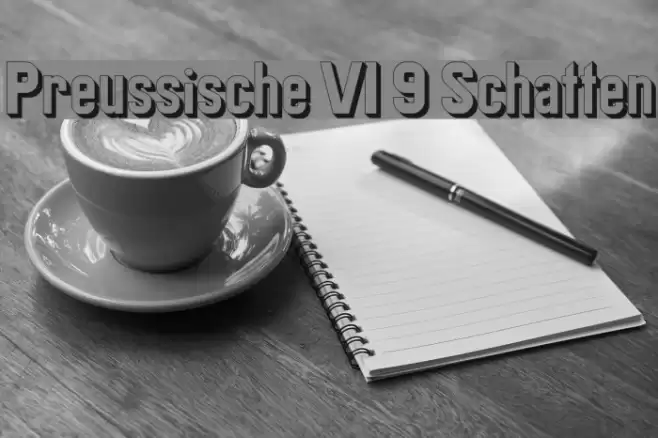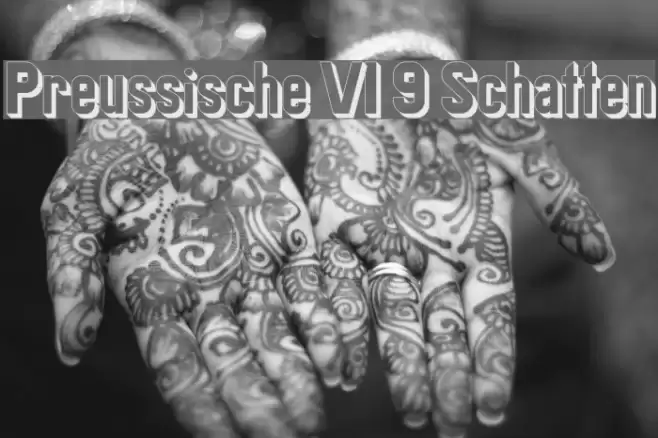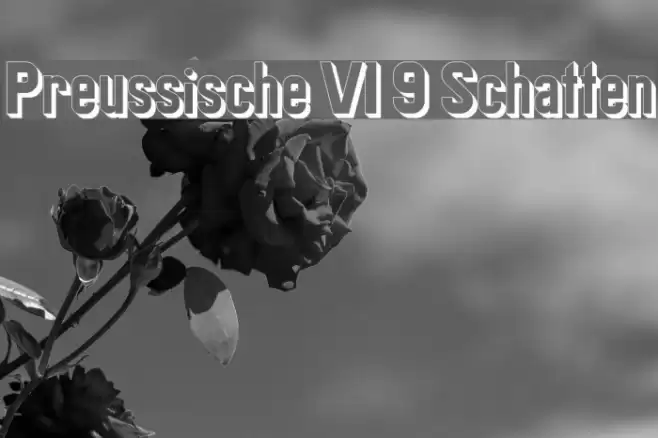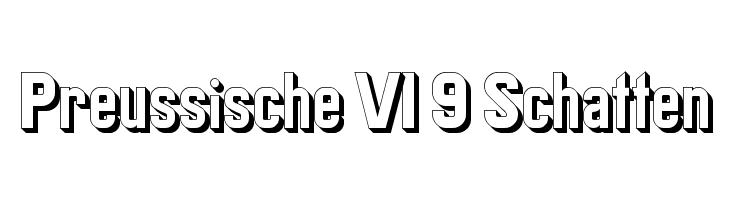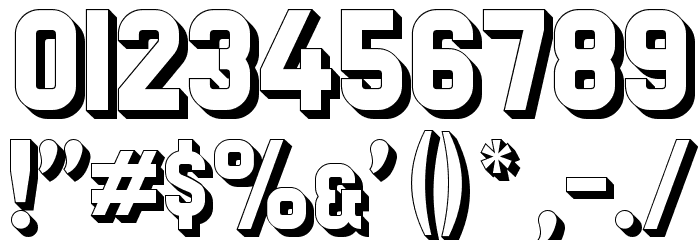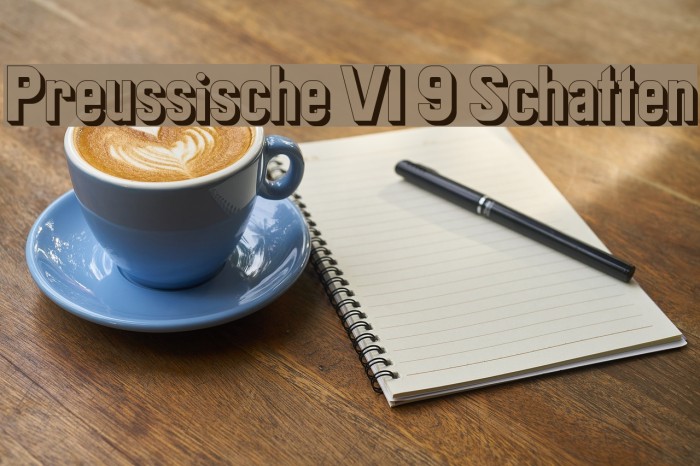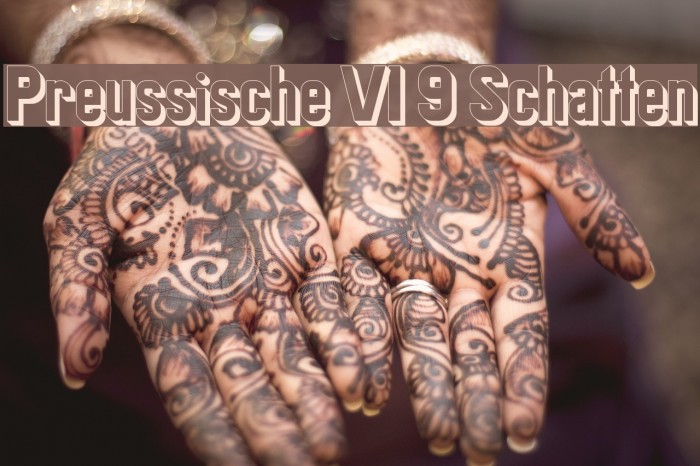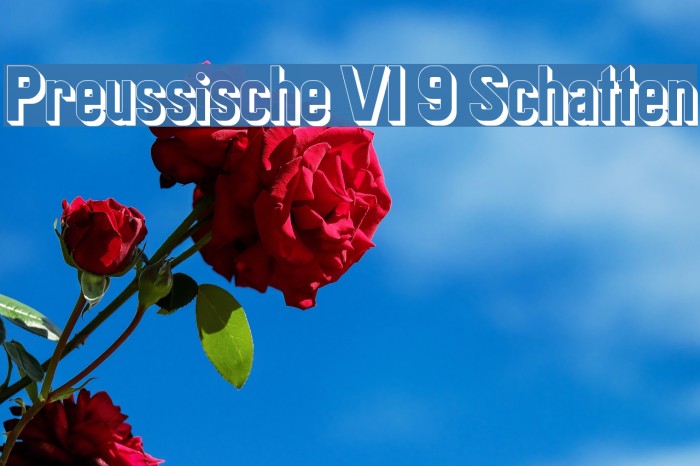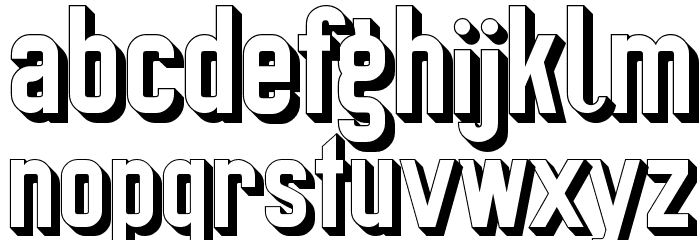
Preussische VI 9 Schatten Font
Preussische VI 9 Schatten Description
This font features a bold, three-dimensional shadow effect that gives it a striking and dynamic appearance. The uppercase and lowercase letters are designed with strong geometric shapes, creating a sense of depth and movement. The numerals and special characters maintain this bold style, ensuring consistency across all glyphs. The font's shadow effect is particularly pronounced, adding a layer of complexity and visual interest. Its clean lines and structured form make it suitable for impactful designs where attention is key.
A bold, shadowed font with strong geometric shapes and a dynamic 3D effect from Sans Serif fonts.